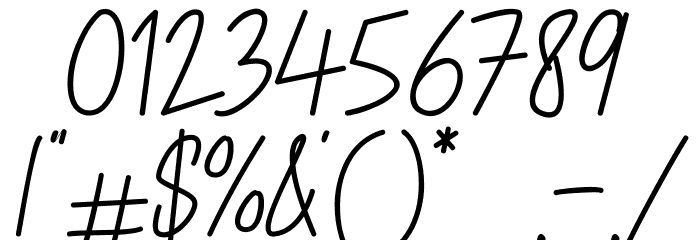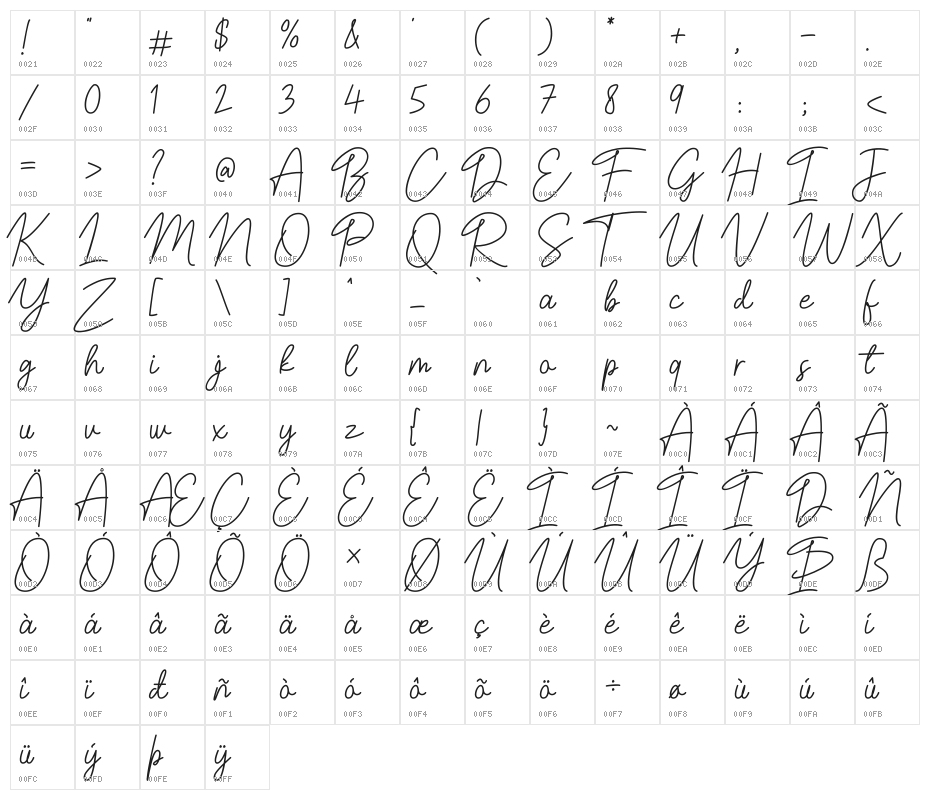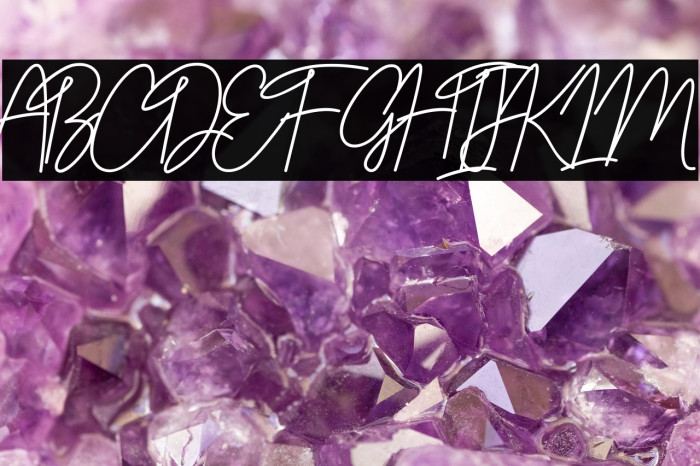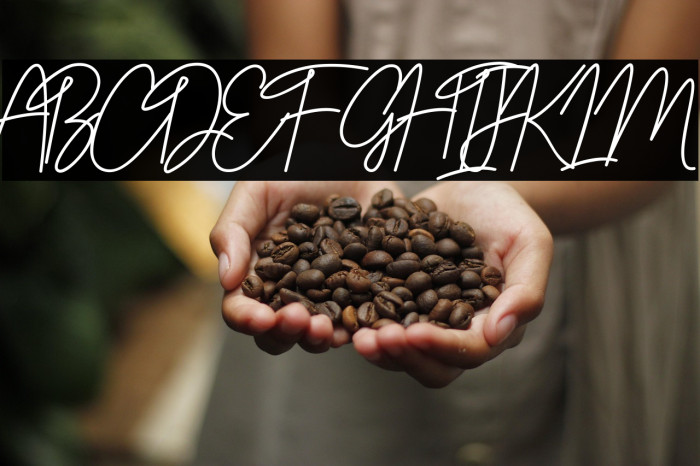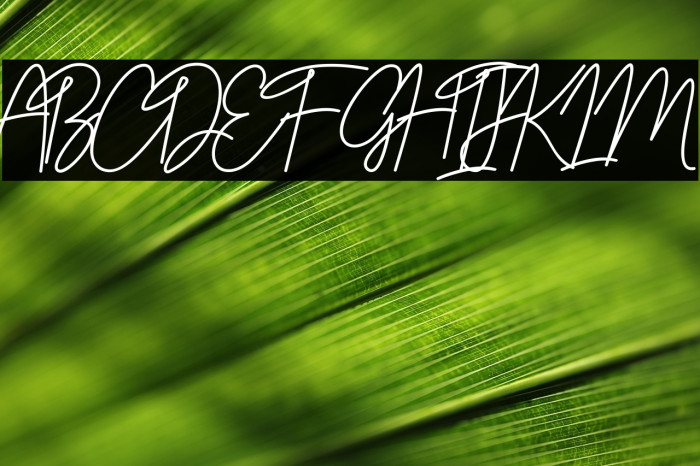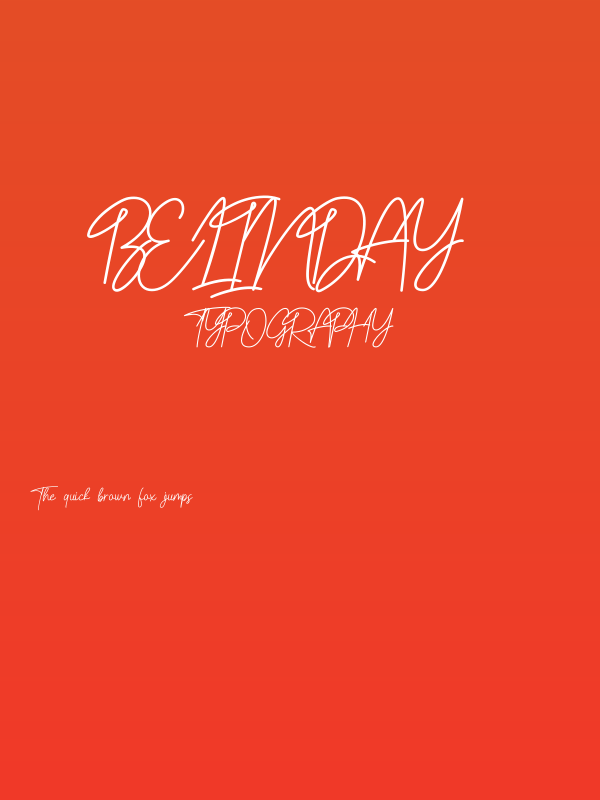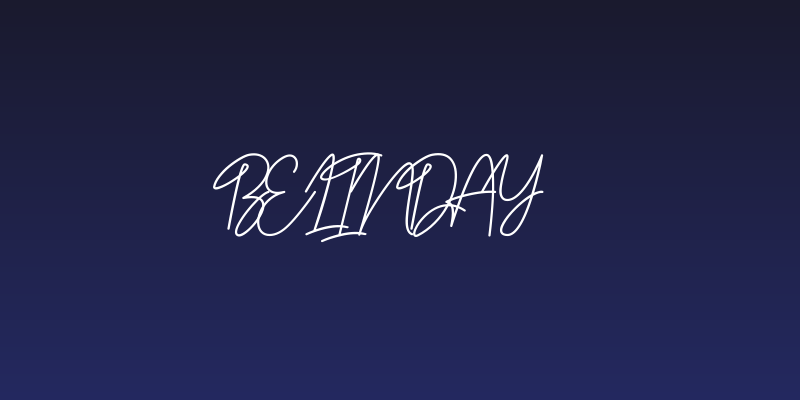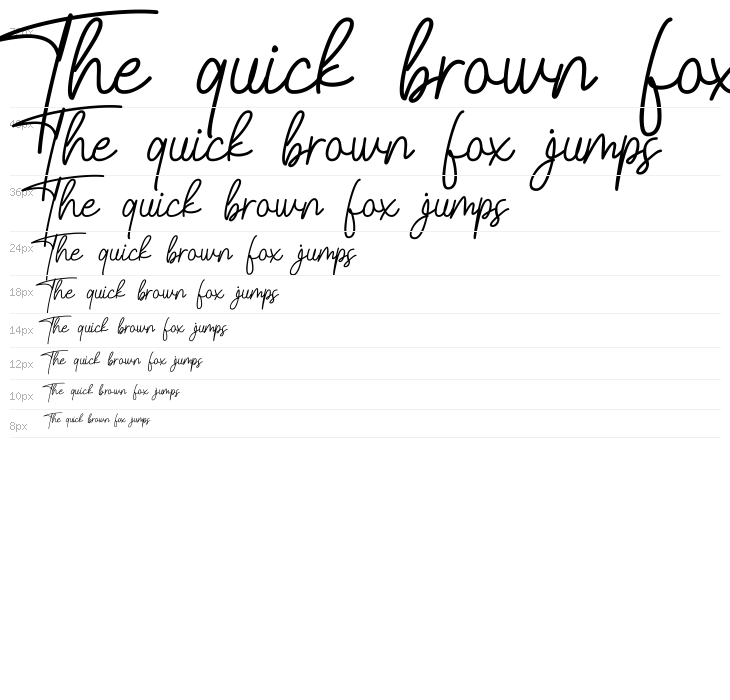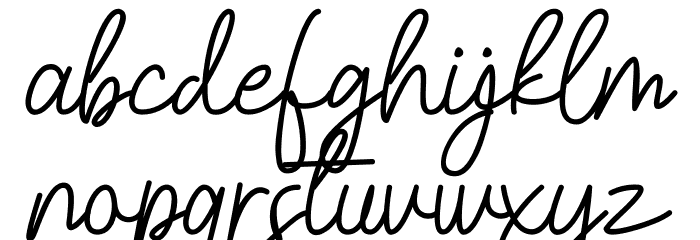
Belinday Font
Belinday Description
This font features a dynamic and fluid handwritten style, characterized by its elegant and flowing letterforms. The uppercase letters are tall and slender, with a slight slant that adds a sense of movement and grace. The lowercase letters maintain a consistent rhythm, with smooth curves and a natural, organic feel. The numerals are clear and legible, complementing the overall aesthetic. Special characters are thoughtfully designed, maintaining the font's cohesive look. This font exudes a modern yet personal touch, making it suitable for a variety of creative applications.